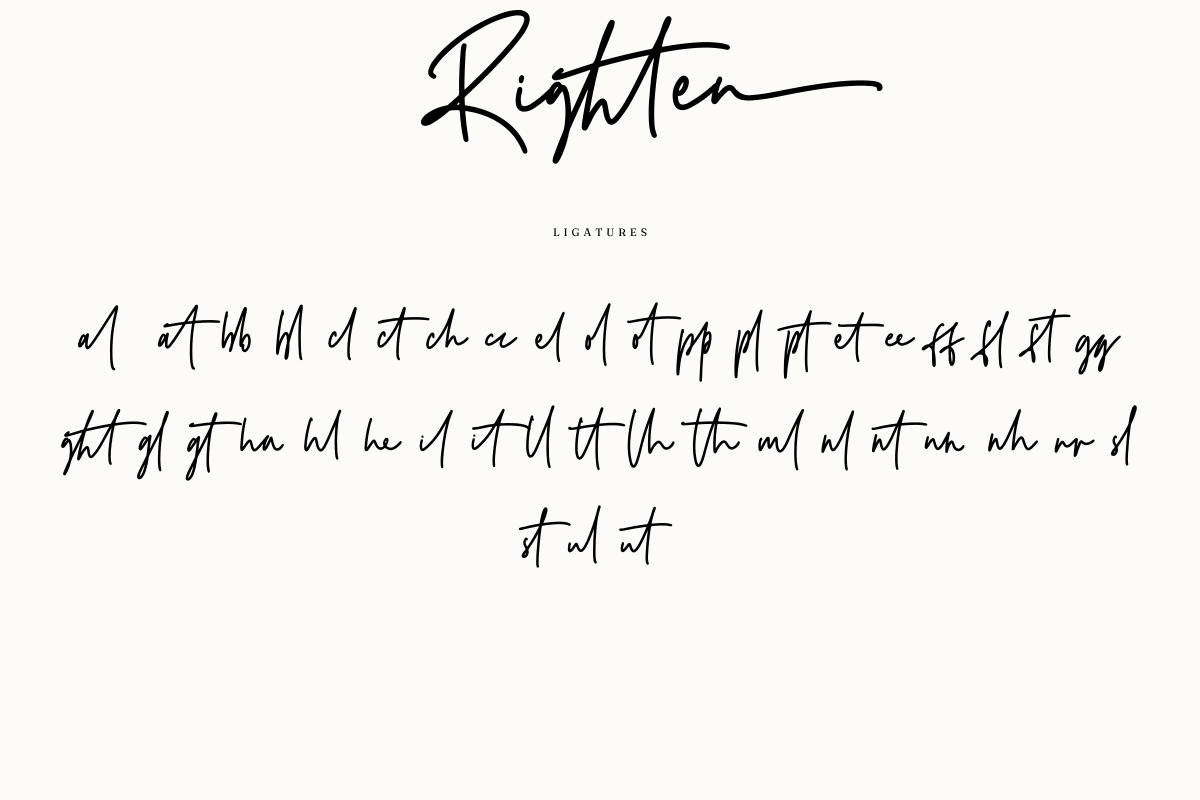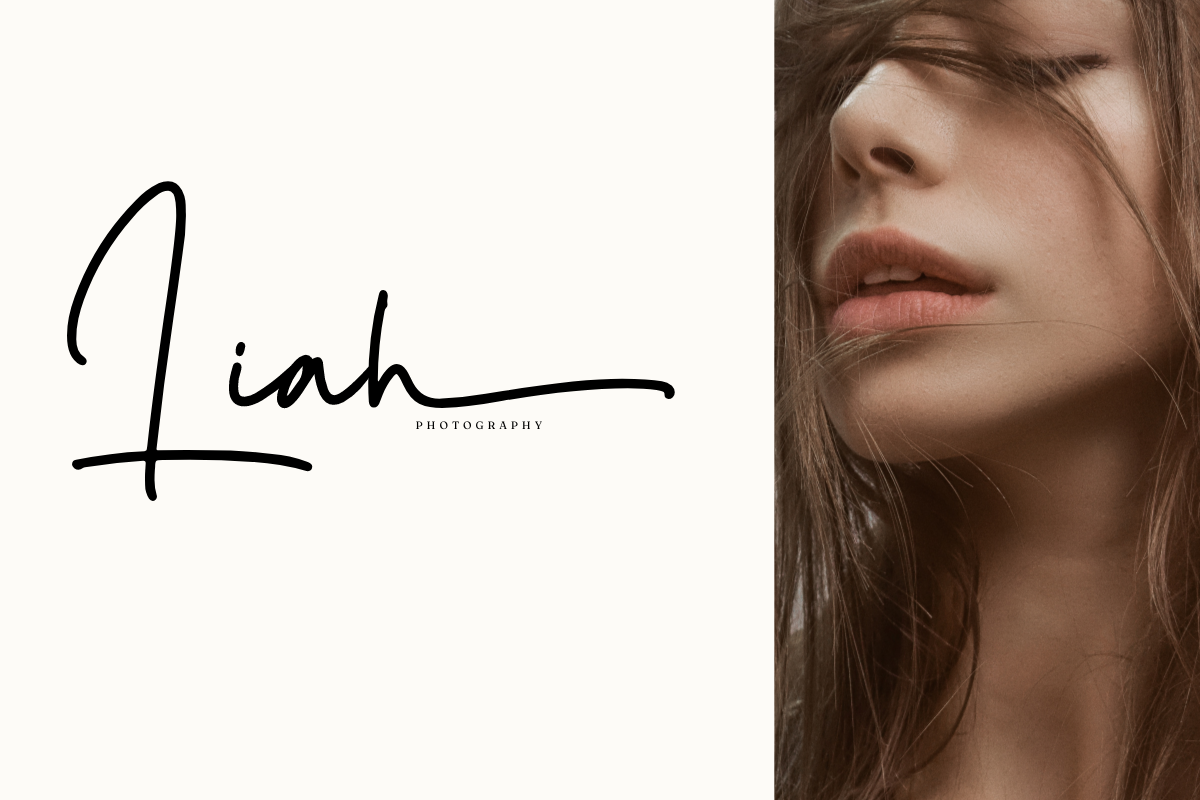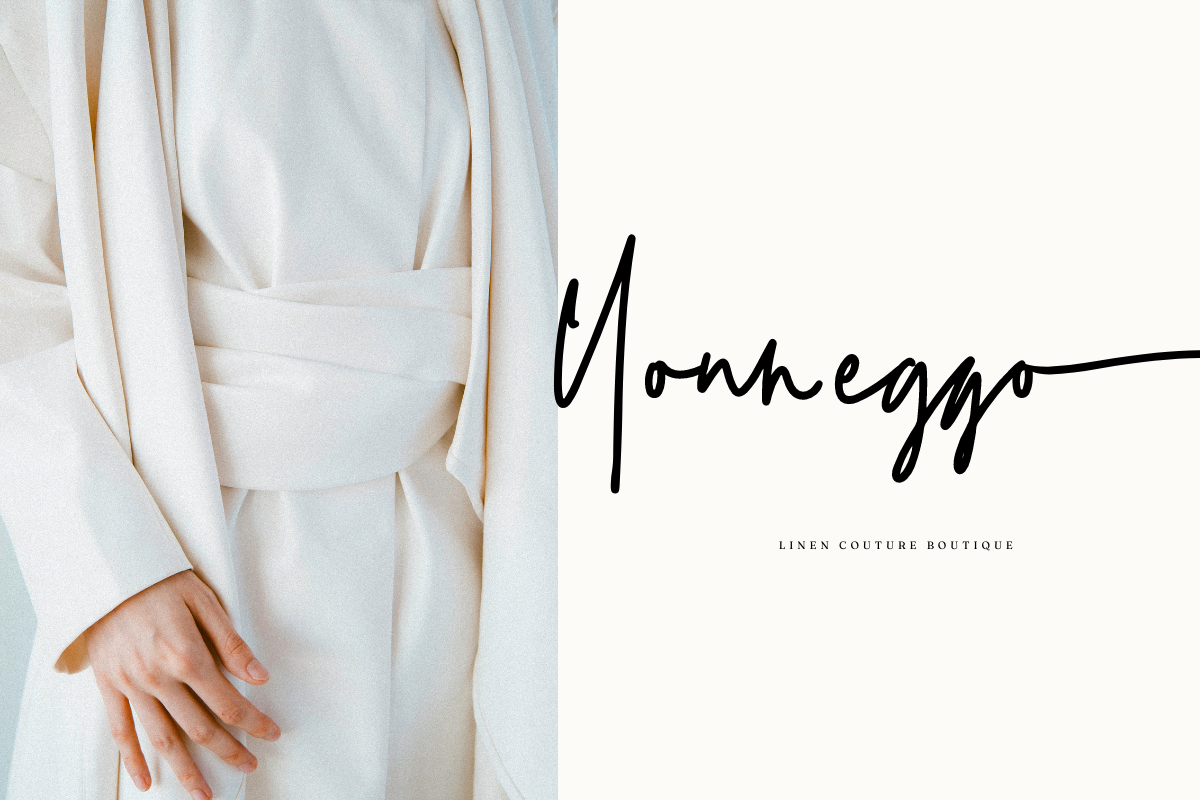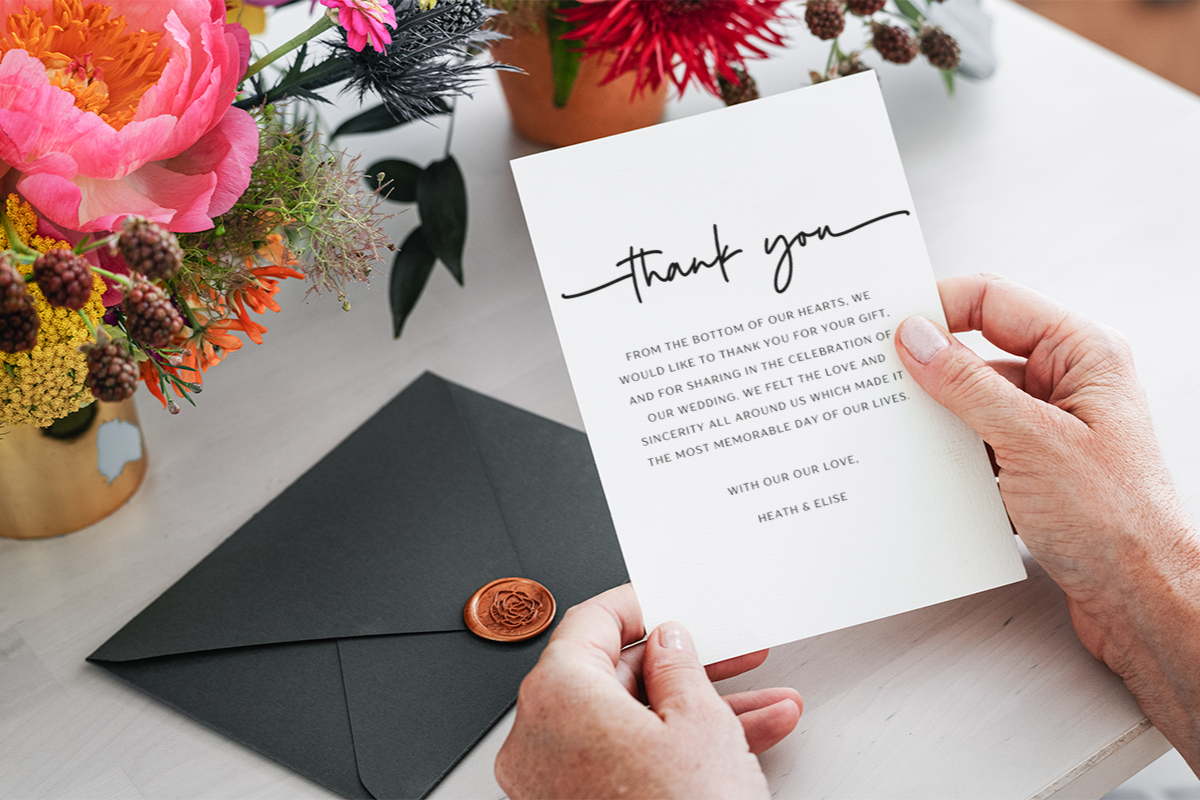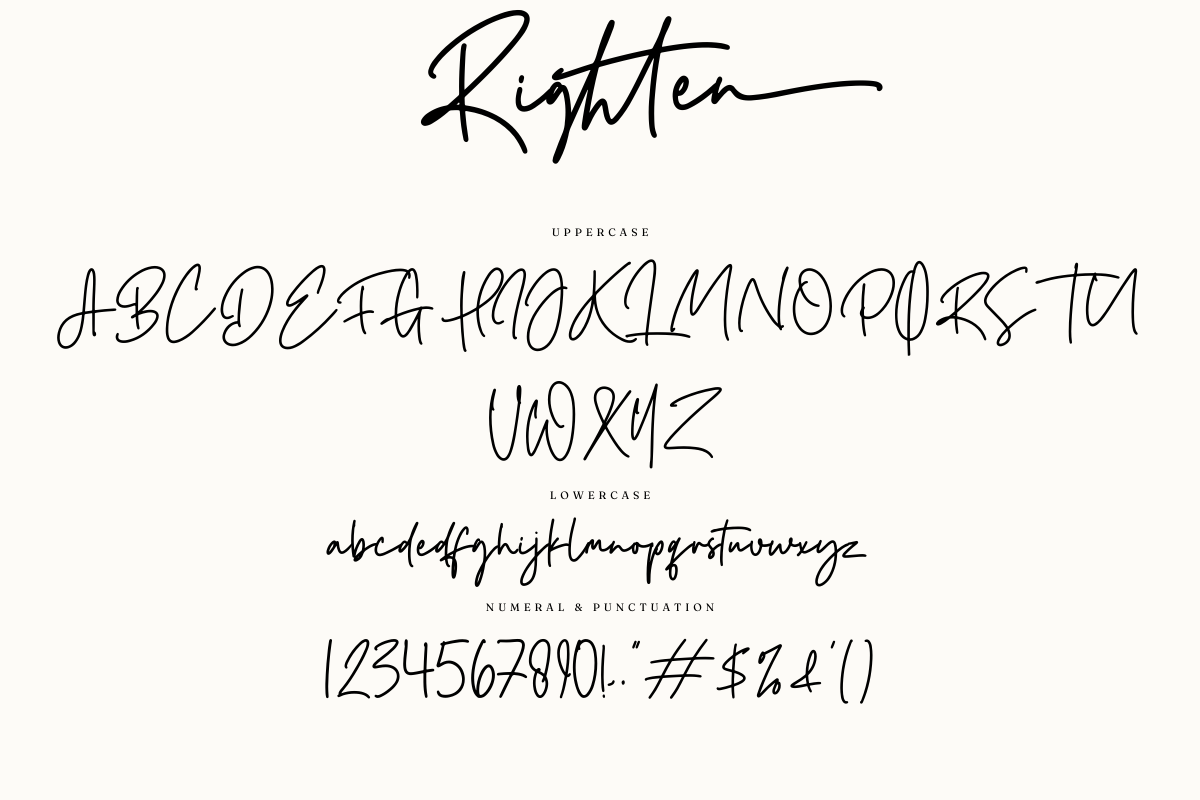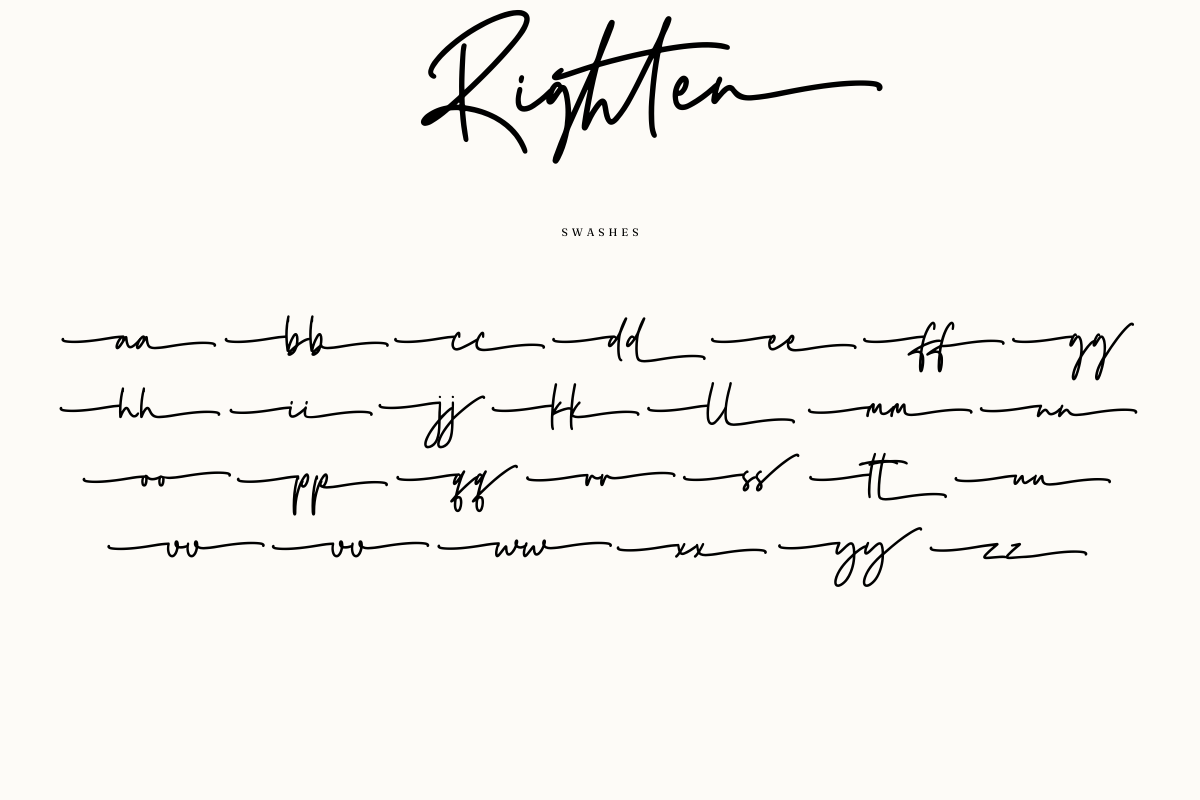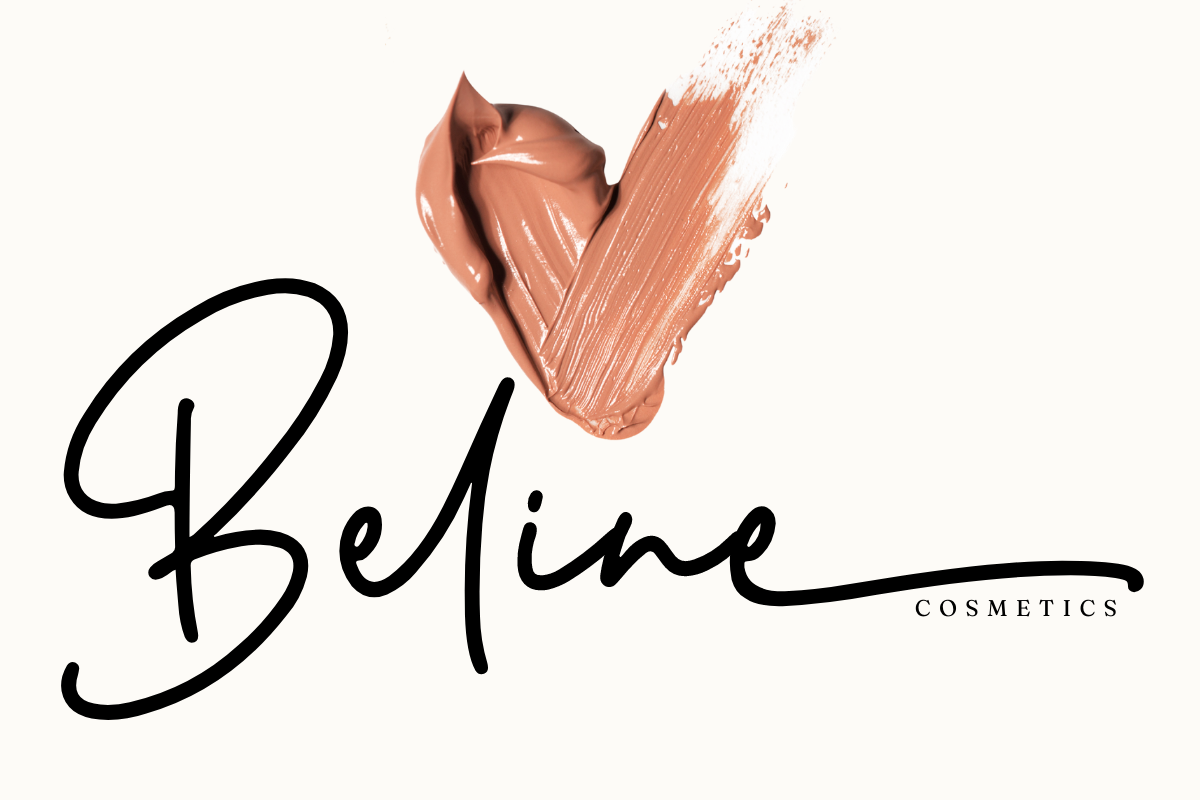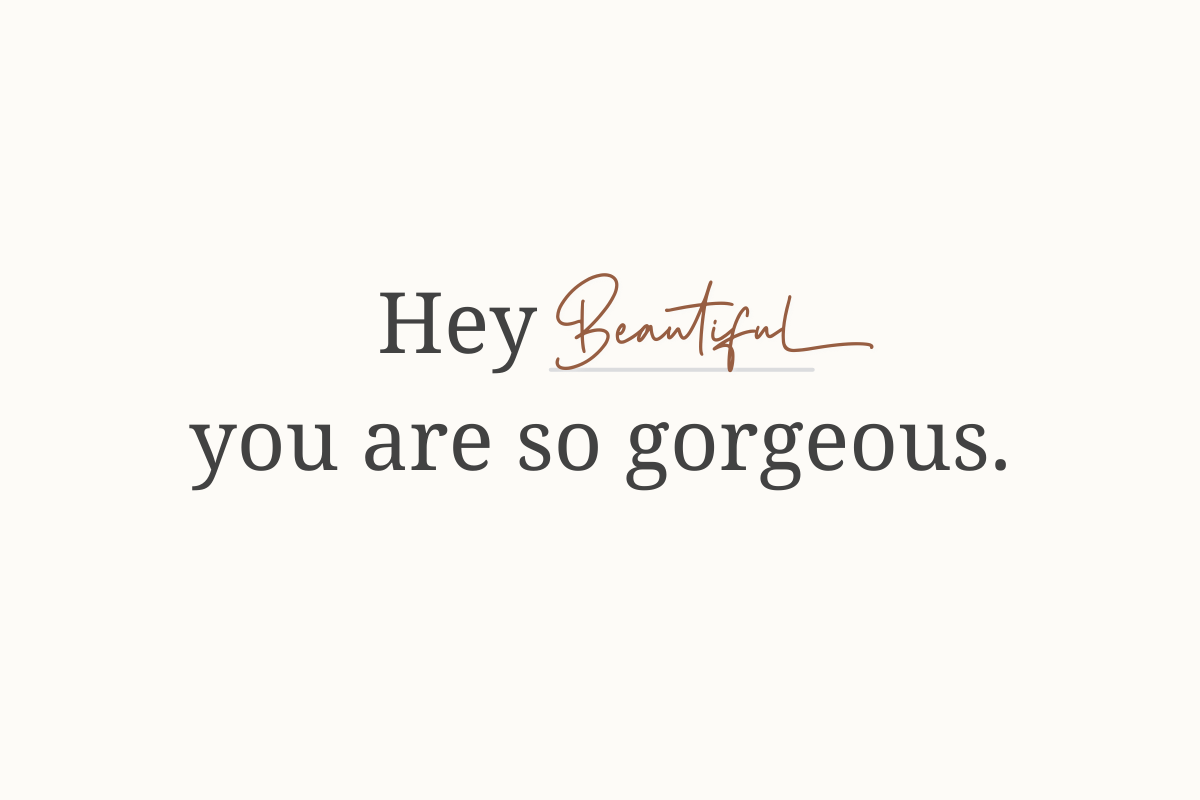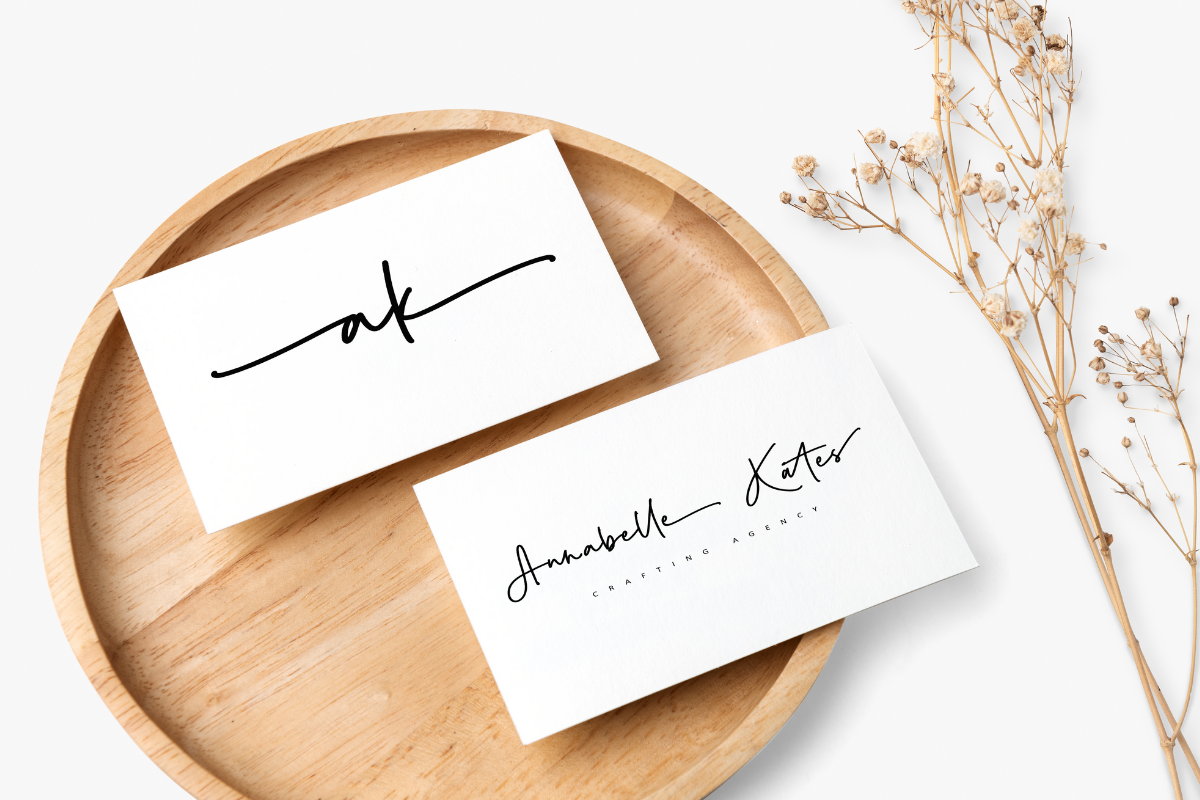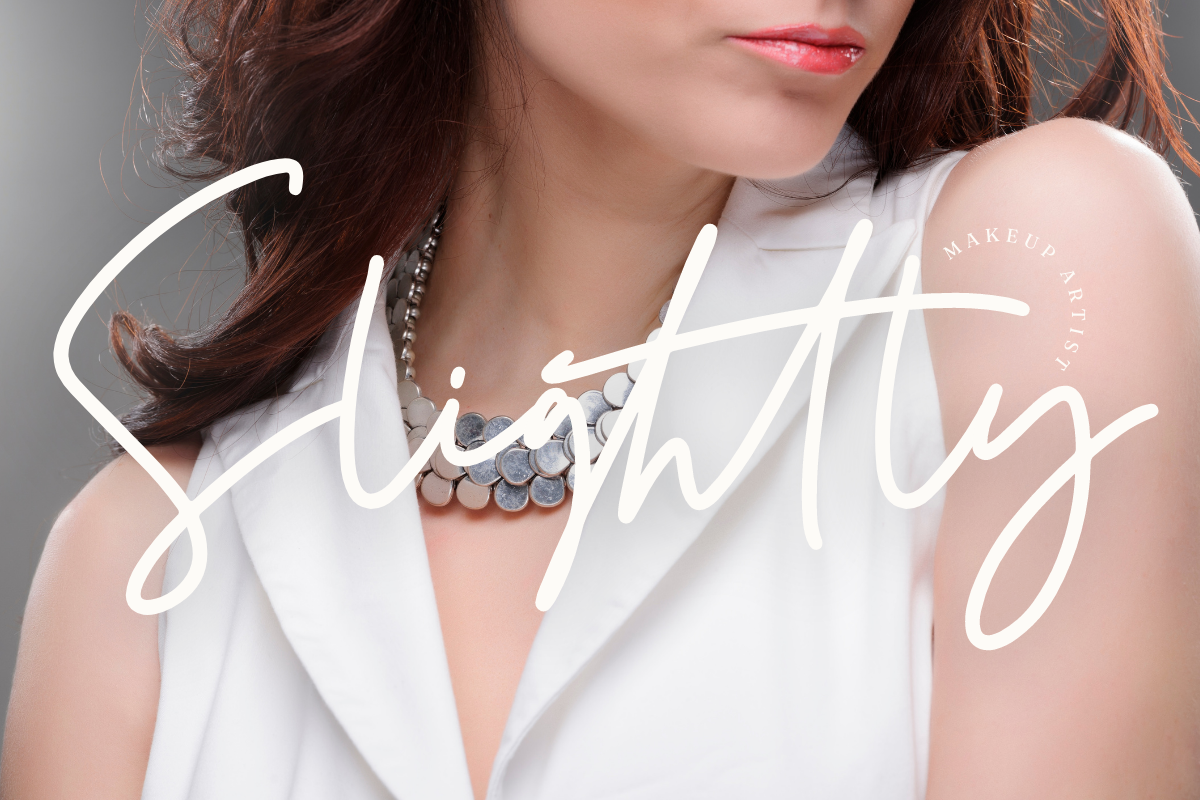
Righten – Eyecathcing Handwritten
Righten – Eyecathcing Handwritten Font
This font is made in a modern style, very casual, and suitable for your various design needs. It’s perfect for logo, branding, title, social media posts, advertisements, product packaging, product designs, label, photography, watermark, special event, magazine, web designs, etc.
Righten ( Uppercase, Lowercase ) Swashes multilingual support Ligatures If you have any questions please don’t hesitate to contact me